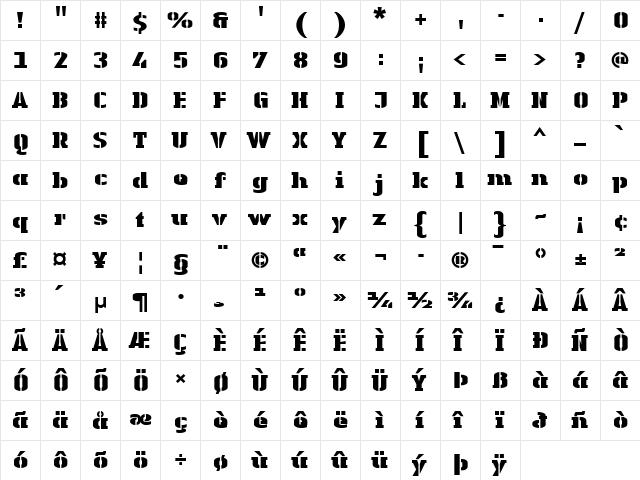
LTAuthenticStencil Black Black Font Preview
LTAuthenticStencil Black Black
LTAuthenticStencil Black Black Font Details
Design Context for LTAuthenticStencil Black Typeface
LTAuthenticStencil Black borrows the utilitarian aesthetic of stencil lettering, with its characteristic cutaways and no-frills construction lending an industrial edge.
A strong choice for packaging that needs edge, warehouse aesthetics, and rough-and-ready visual identities.
Pro Tip: Use LTAuthenticStencil Black at large sizes on packaging, posters, or apparel where the stencil cutaways read clearly. Avoid small sizes where those gaps become visual noise.